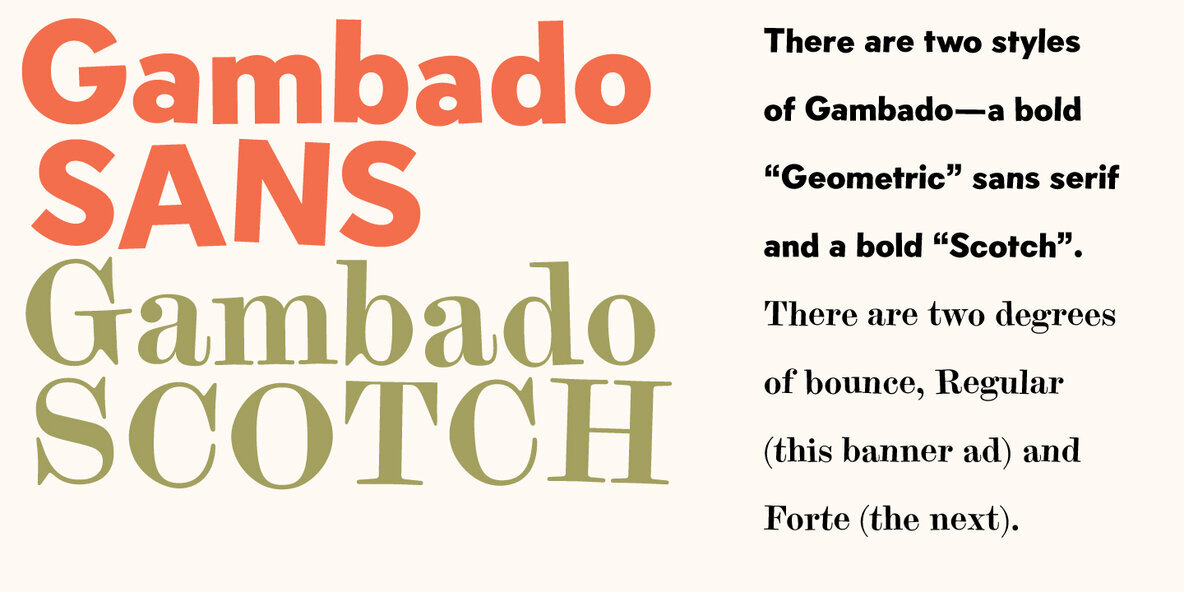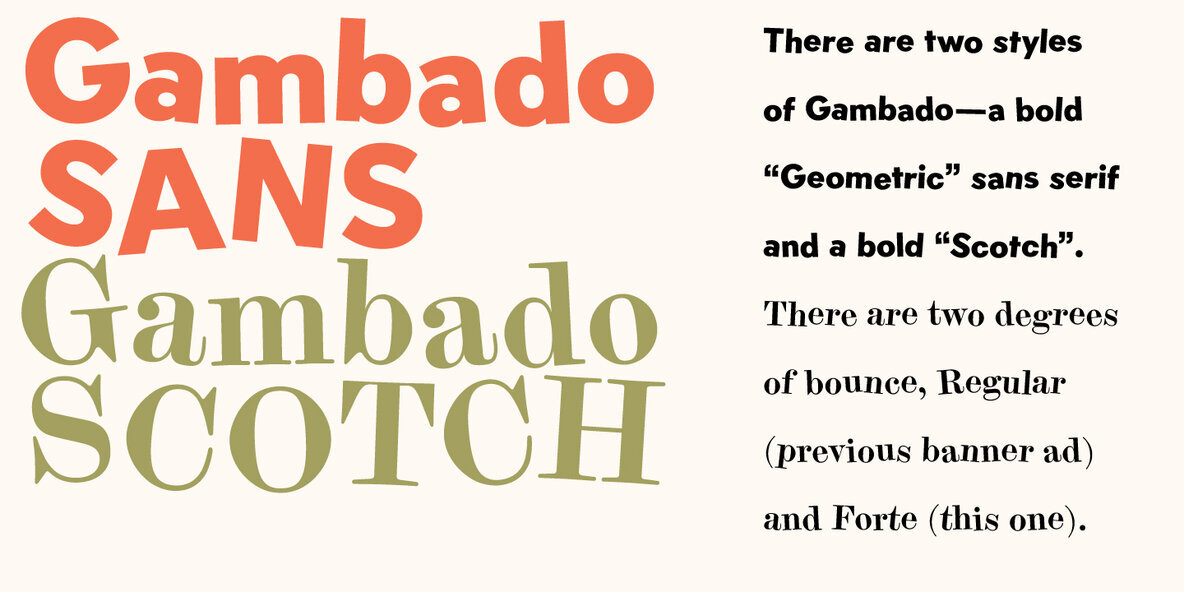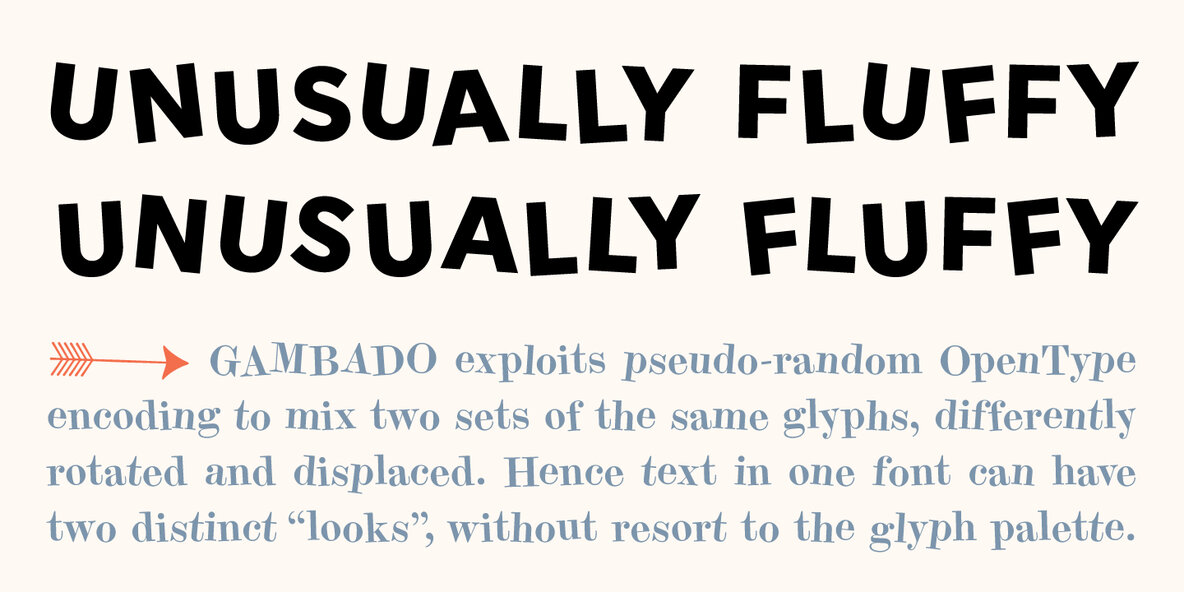
‘Bounced’ is the traditional term for a higgledy-piggledy style of lettering in which characters are shaken up by a combination of rotation and vertical displacement from the presumed norm of upright stance on a baseline. Now, by utilizing pseudo-random contextuality in the OpenType format, Nick Shinn has created complex, default bouncing automatically through the agency of a font, rather than letter-by-letter manual adjustments in a layout app.